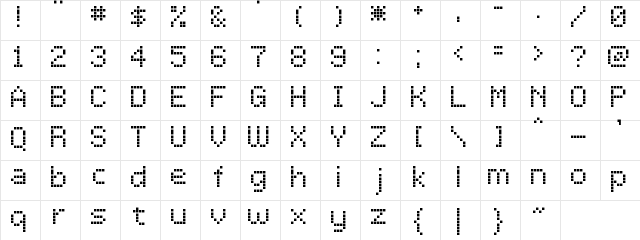
LCDDot Regular Free Font
LCDDot Regular
Designer: BLackX
Design Context for LCDDot
LCDDot is rooted in pixel-grid construction, making it a natural fit for game UI, retro computing aesthetics, and digital nostalgia projects.
Pro Tip: Use LCDDot at sizes that align with its pixel grid for the sharpest rendering - scaling to non-integer multiples can introduce unwanted blur.